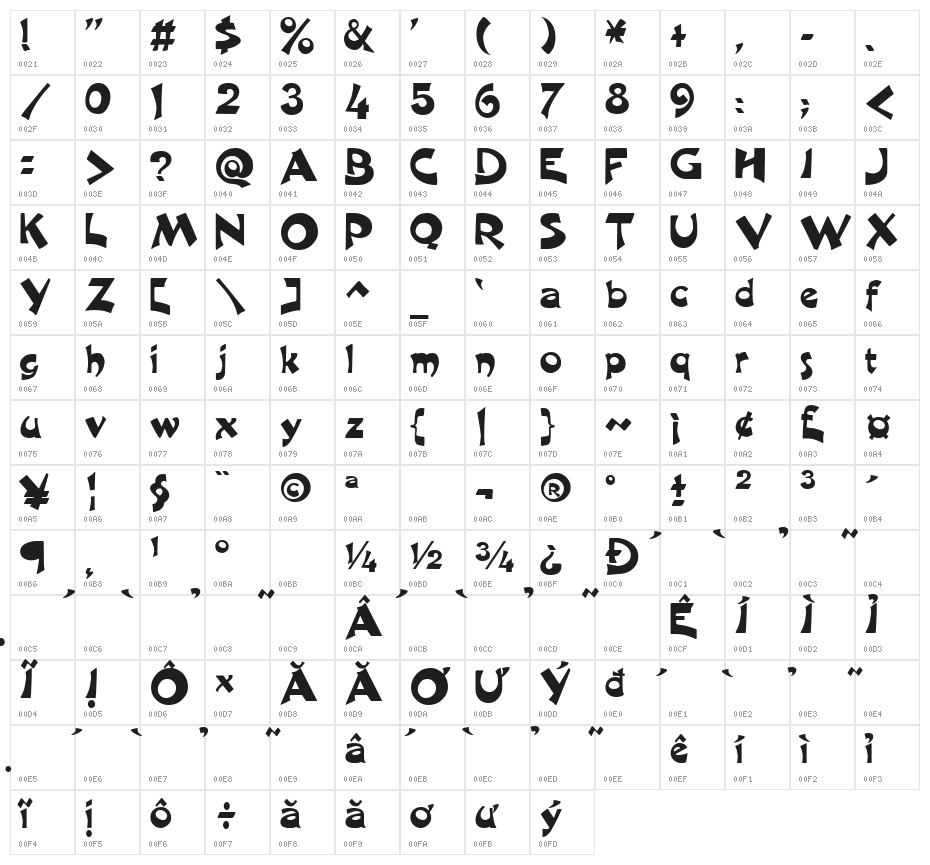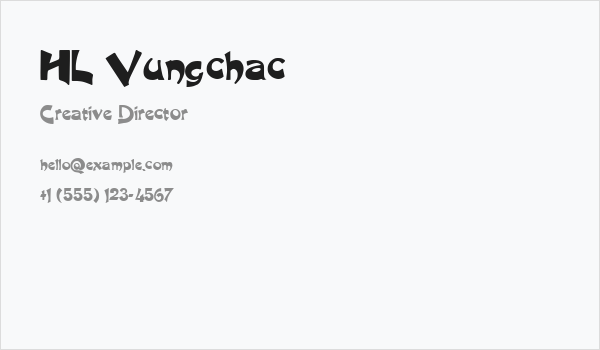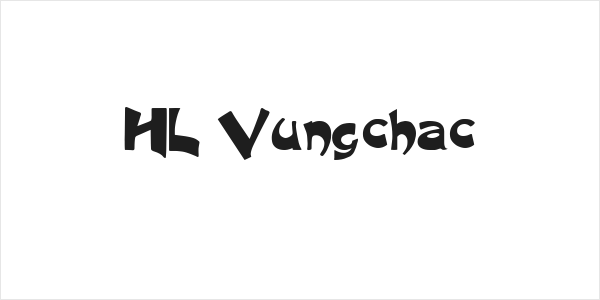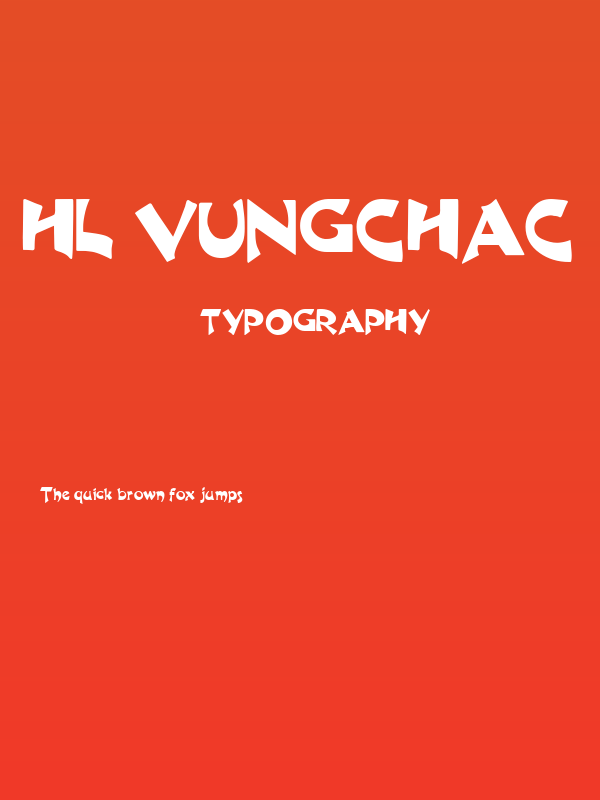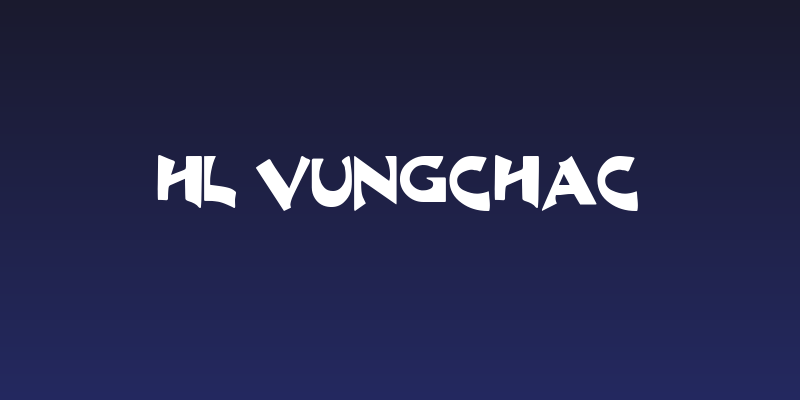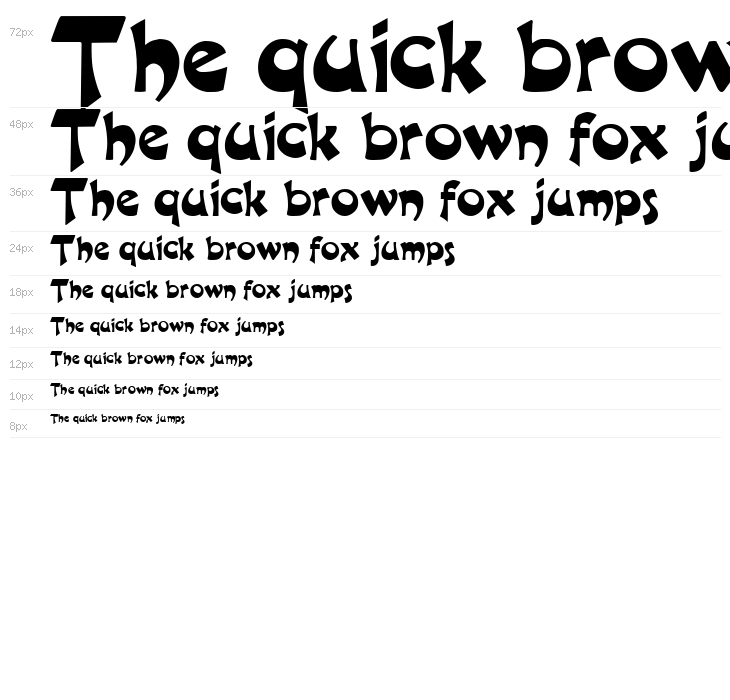
HL Vungchac Font
HL Vungchac Description
This font features a bold and dynamic design with sharp, angular edges and a playful, artistic flair. The uppercase letters are characterized by their strong, geometric shapes, while the lowercase letters maintain a consistent style with slightly softer curves. The numbers are bold and easily readable, matching the overall aesthetic. Special characters are creatively integrated, adding to the font's unique personality. The font's distinct style makes it suitable for attention-grabbing designs, offering a modern yet slightly retro vibe.
| Proposed Projects | Ideal for posters, logos, and branding projects that require a bold and distinctive look. |